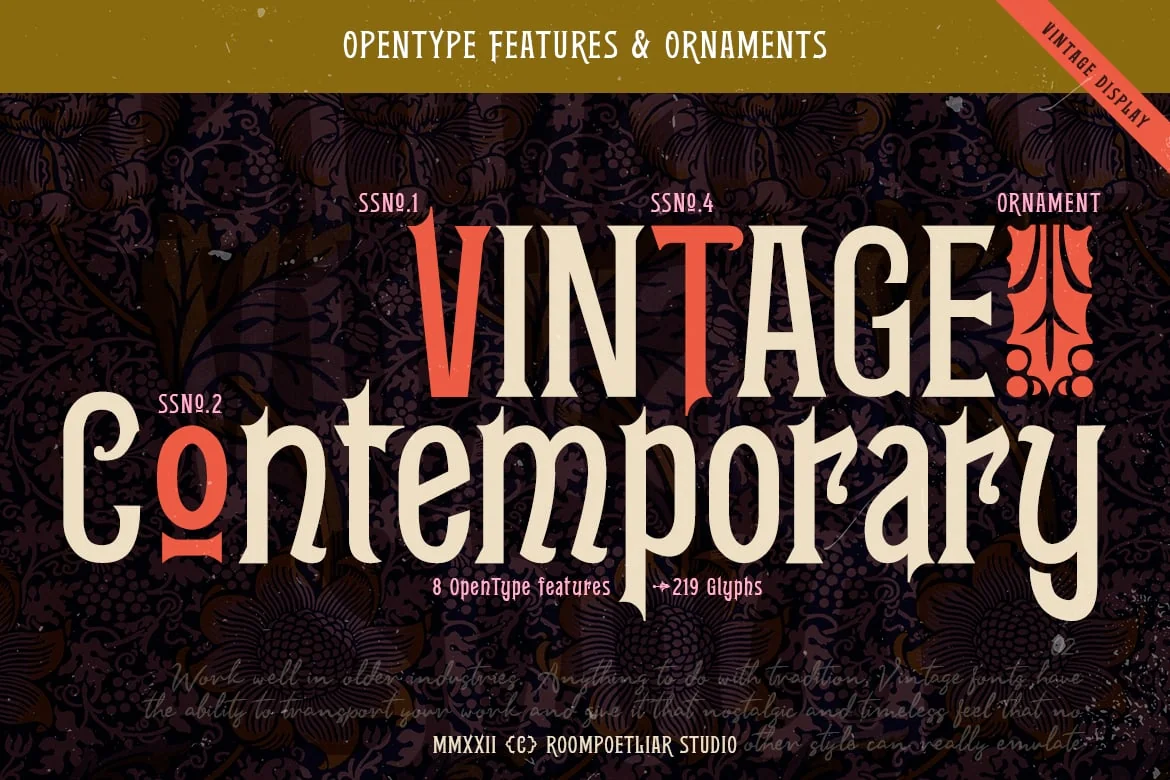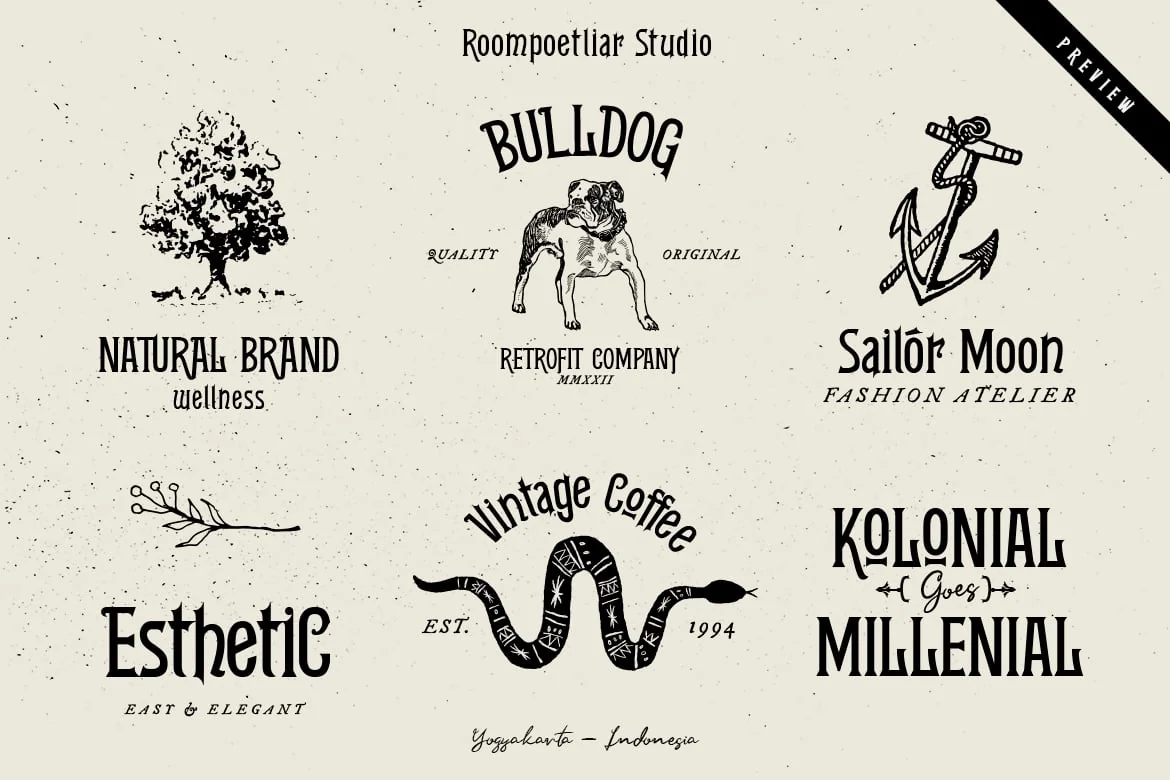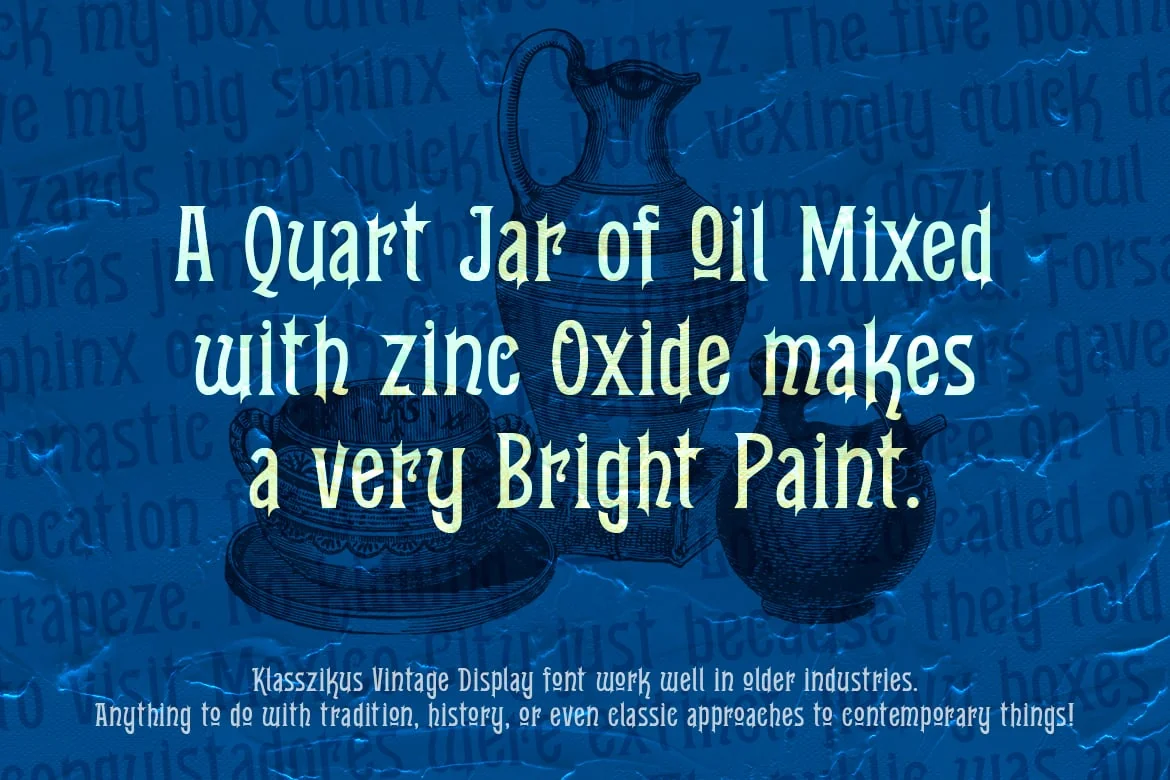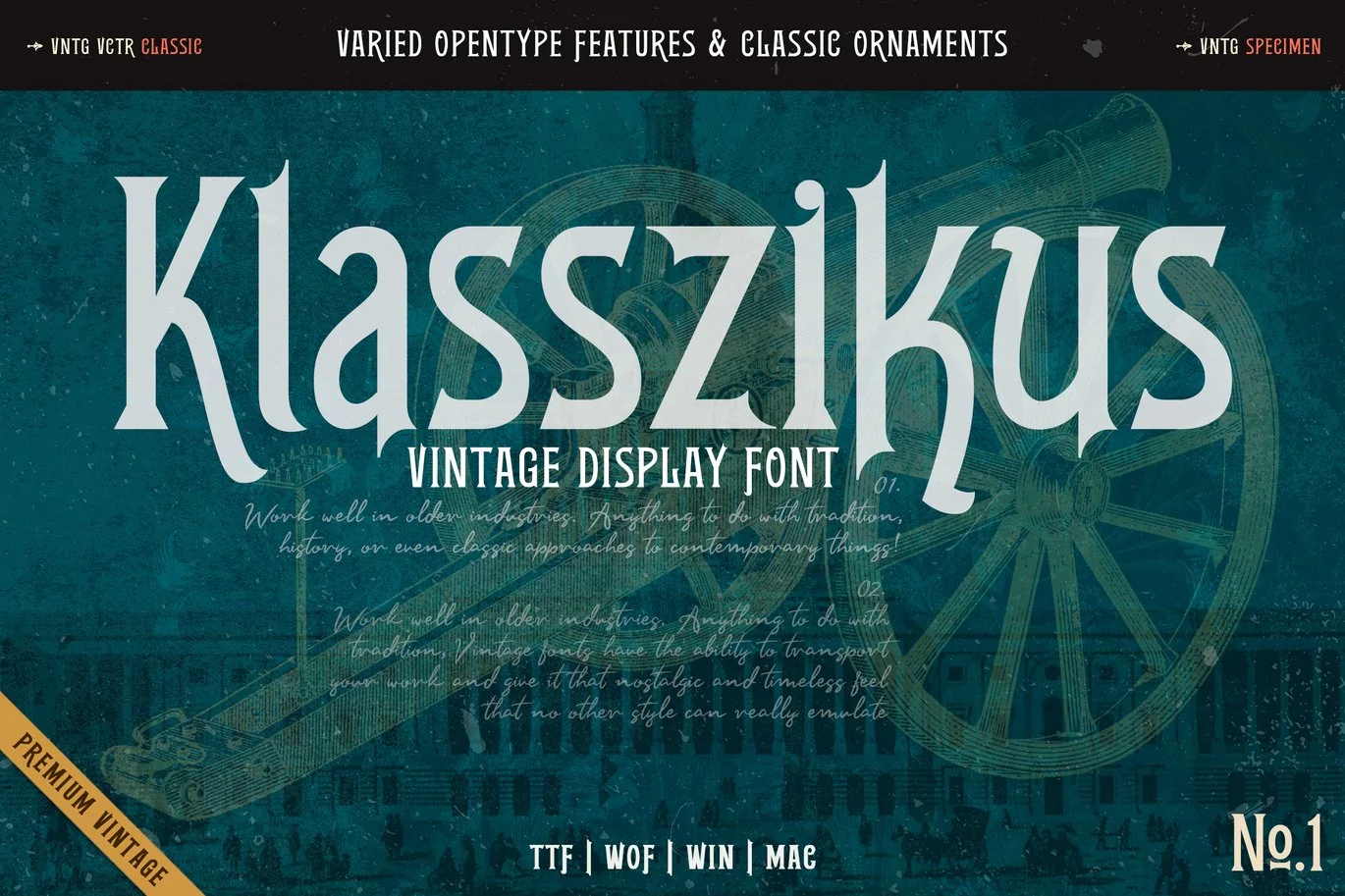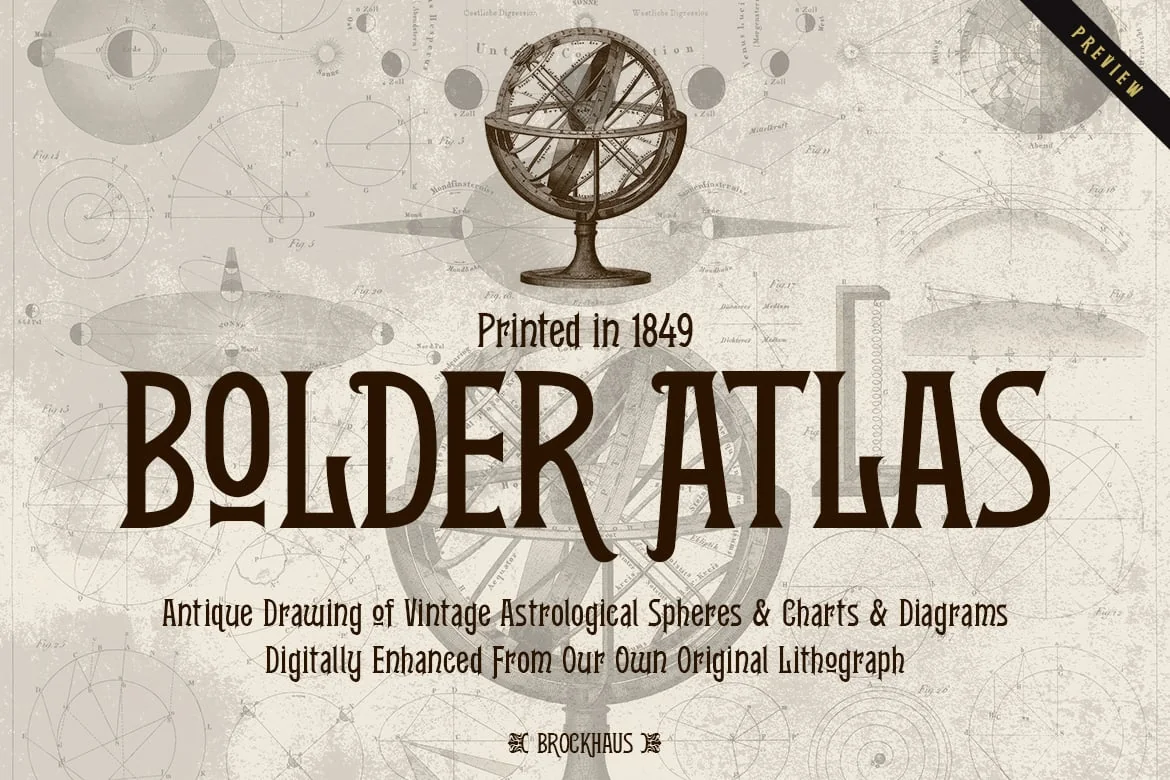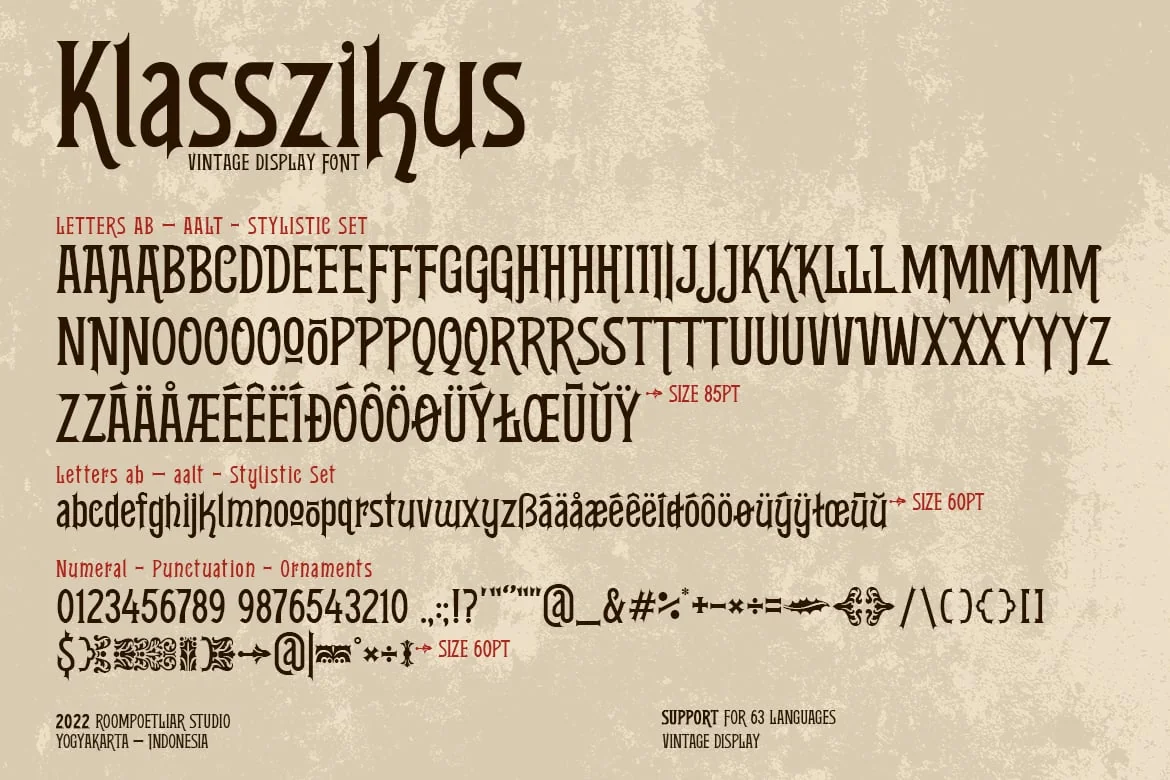
Klasszikus Vintage Font
Klasszikus Font is an elegant and stunning vintage display font. Klasszikus Vintage Display font works well in older industries. Anything to do with tradition, history, or even classic approaches to contemporary things. It features a vintage style and will add a unique feel to your upcoming projects. Get inspired by its authentic feel and use it to create gorgeous promotions, beautiful logo art, eye-catching social media posts, and elegant greeting cards.
- Basic Latin A-Z and a-z, Numbers, Punctuation, and 8 OpenType features
- 219 glyphs & 63 languages